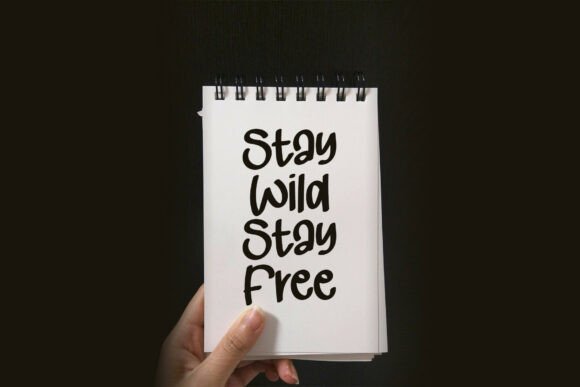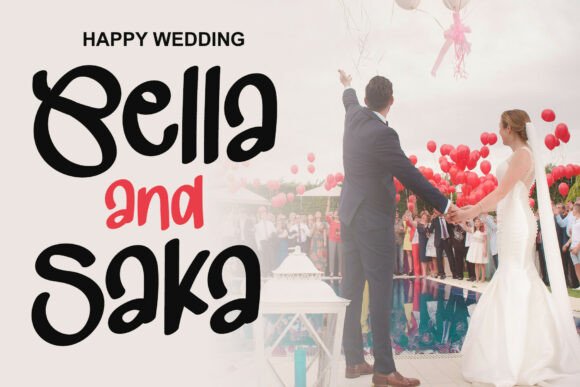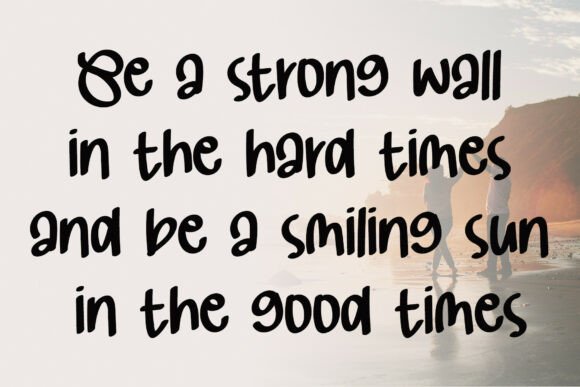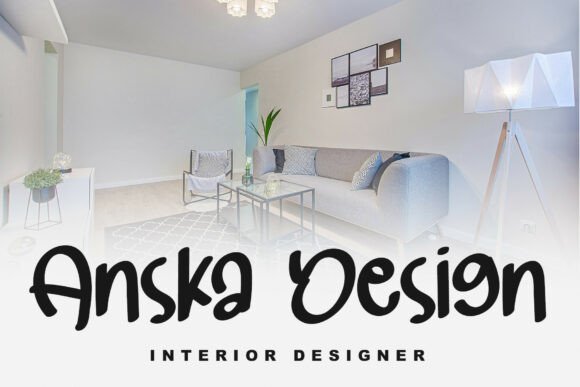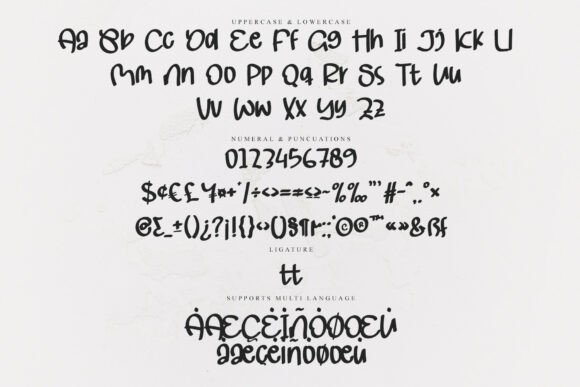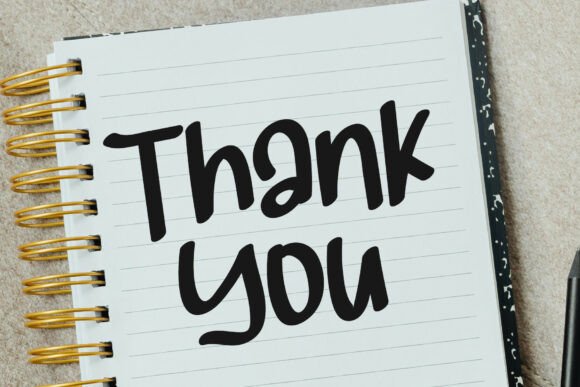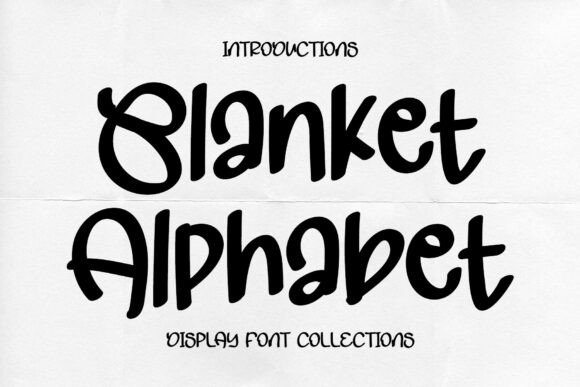
Introducing Blanket Alphabet Font: Elevate Your Designs with Elegance and Personality
In the world of typography, a font can make or break the aesthetic of a design. For those seeking a blend of sophistication and modern artistry, the Blanket Alphabet Font stands out as a beautifully crafted display handwriting font. Its unique combination of elegance and approachability makes it an ideal choice for designers and crafters looking to infuse their projects with a touch of class and personality.
The Essence of Blanket Alphabet Font
Blanket Alphabet Font is characterized by its flowing strokes and well-balanced curves, which contribute to its sophisticated yet approachable feel. This font is not just a typeface; it’s an expression of artistry that can elevate any design from ordinary to extraordinary. Whether you’re working on a branding project, a website, or crafting materials, Blanket Alphabet offers the versatility to adapt to various design needs while maintaining its distinctive charm.
Key Features of Blanket Alphabet Font
- Elegant and Modern: The font boasts a modern, artistic touch that doesn’t compromise on elegance. Its design ensures that your projects stand out with a contemporary appeal.
- Versatile: Suitable for a wide range of projects, from digital platforms like websites and social media graphics to print materials such as brochures, posters, and invitations.
- Readable and Approachable: Despite its elegant appearance, the Blanket Alphabet Font remains highly readable, making it perfect for both headings and body text.
- Unique Artistic Touch: The flowing strokes and balanced curves give the font a unique artistic flair that can add a personal touch to your designs.
Applications of Blanket Alphabet Font
The versatility of Blanket Alphabet Font makes it suitable for various applications. Here are some of the areas where this font can make a significant impact:
- Branding: Use it for logos, business cards, or brand guidelines to create a memorable and sophisticated brand image.
- Web Design: Enhance your website’s aesthetic with this font, making it more engaging and visually appealing to visitors.
- Social Media Graphics: Create standout social media posts, banners, and stories that capture attention and reflect your unique style.
- Crafting and DIY Projects: Perfect for crafters, this font can be used in crafting tutorials, packaging, and promotional materials to add a personal and artistic touch.
- Stationery and Invitations: Elevate your stationery, invitations, and greeting cards with a touch of elegance and sophistication.
Tips for Using Blanket Alphabet Font
To make the most of Blanket Alphabet Font, consider the following tips:
- Pair with Complementary Fonts: For optimal results, pair Blanket Alphabet with simpler fonts for body text to create contrast and ensure readability.
- Experiment with Colors: While the font itself is elegant, experimenting with colors can enhance its appeal. Consider pastel shades or bold colors to match your design theme.
- Adjust Letter Spacing: For a more customized look, adjust the letter spacing. This can add a unique touch to your design, especially in headings.
Blanket Alphabet Font is a versatile and elegant typeface that can transform your designs with its sophisticated and artistic appeal. Whether you’re a designer looking to impress clients or a crafter aiming to add a personal touch to your projects, this font offers the perfect blend of elegance and modernity. By incorporating Blanket Alphabet Font into your design toolkit, you’re not just choosing a font; you’re embracing a style that speaks of class, creativity, and a keen eye for detail.